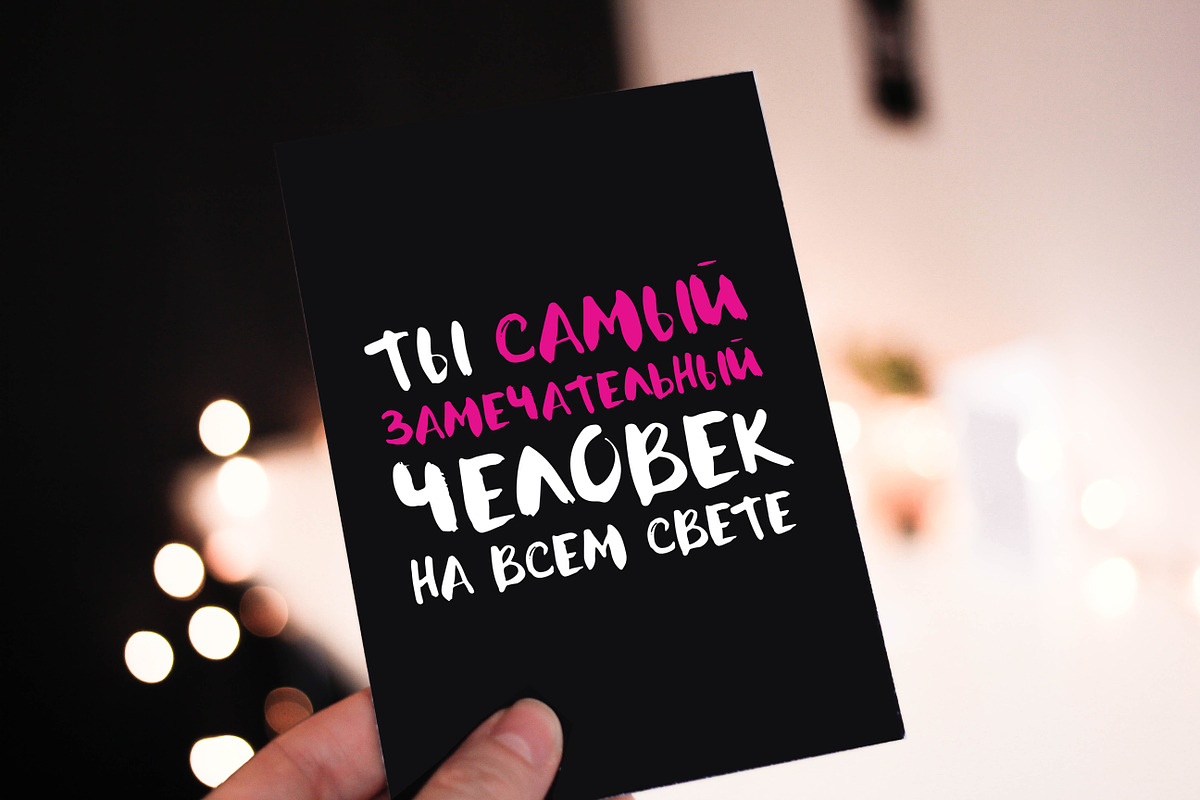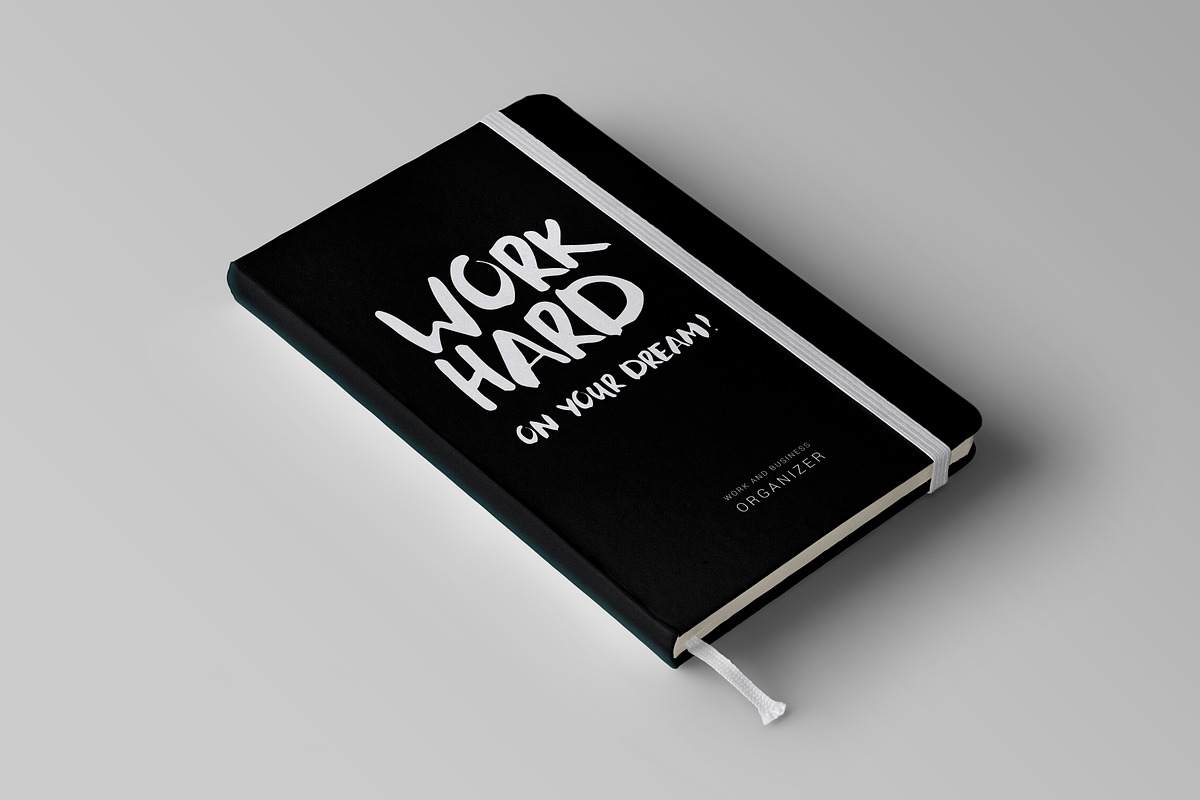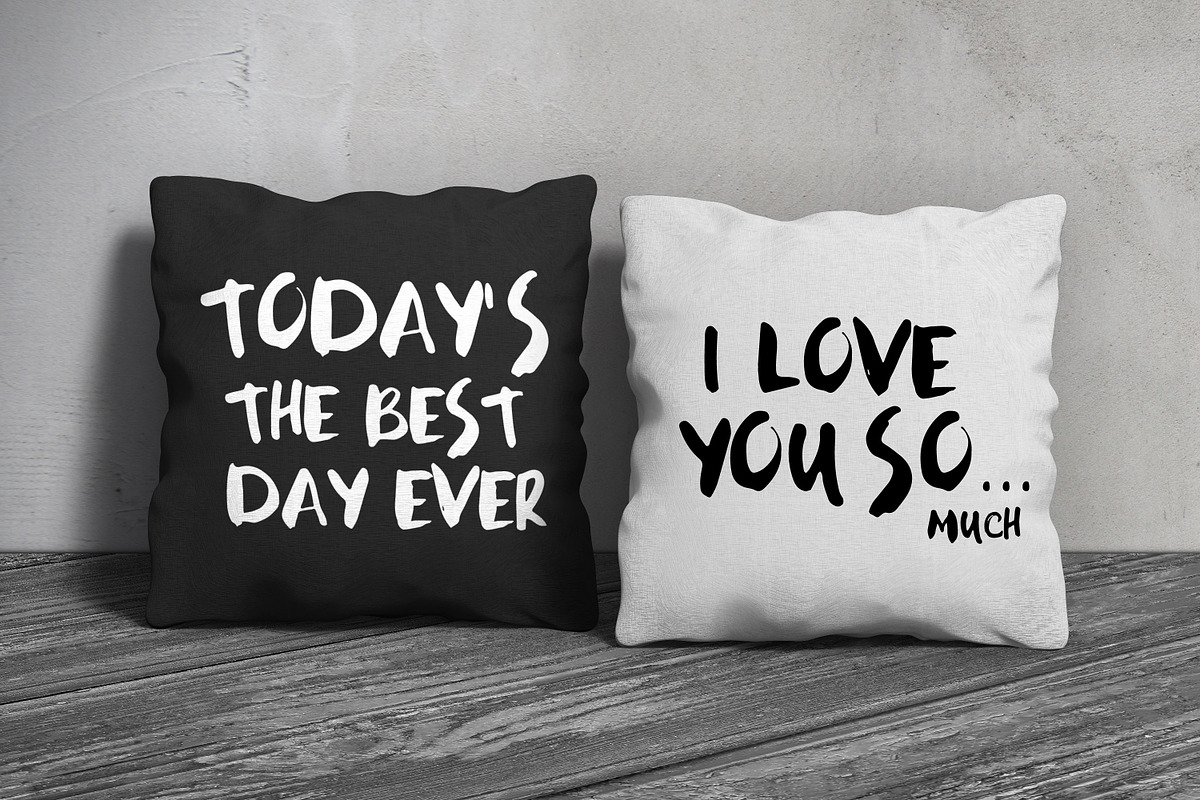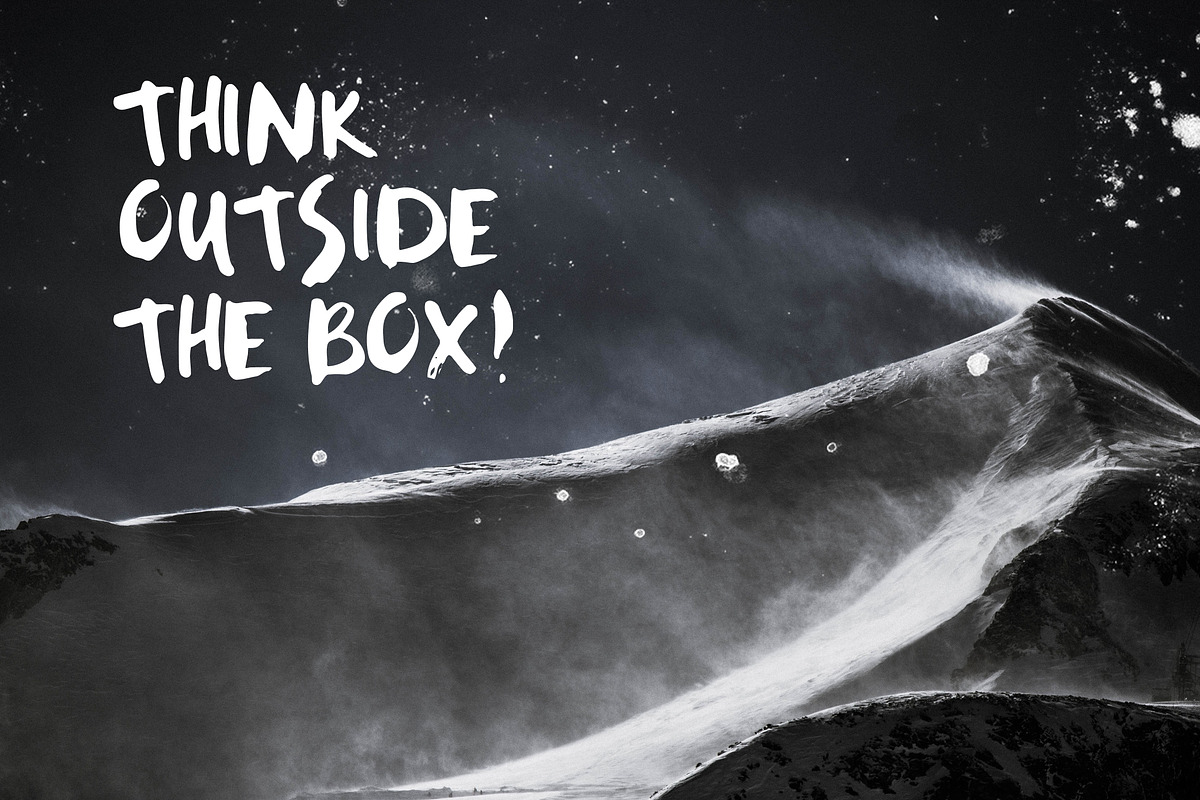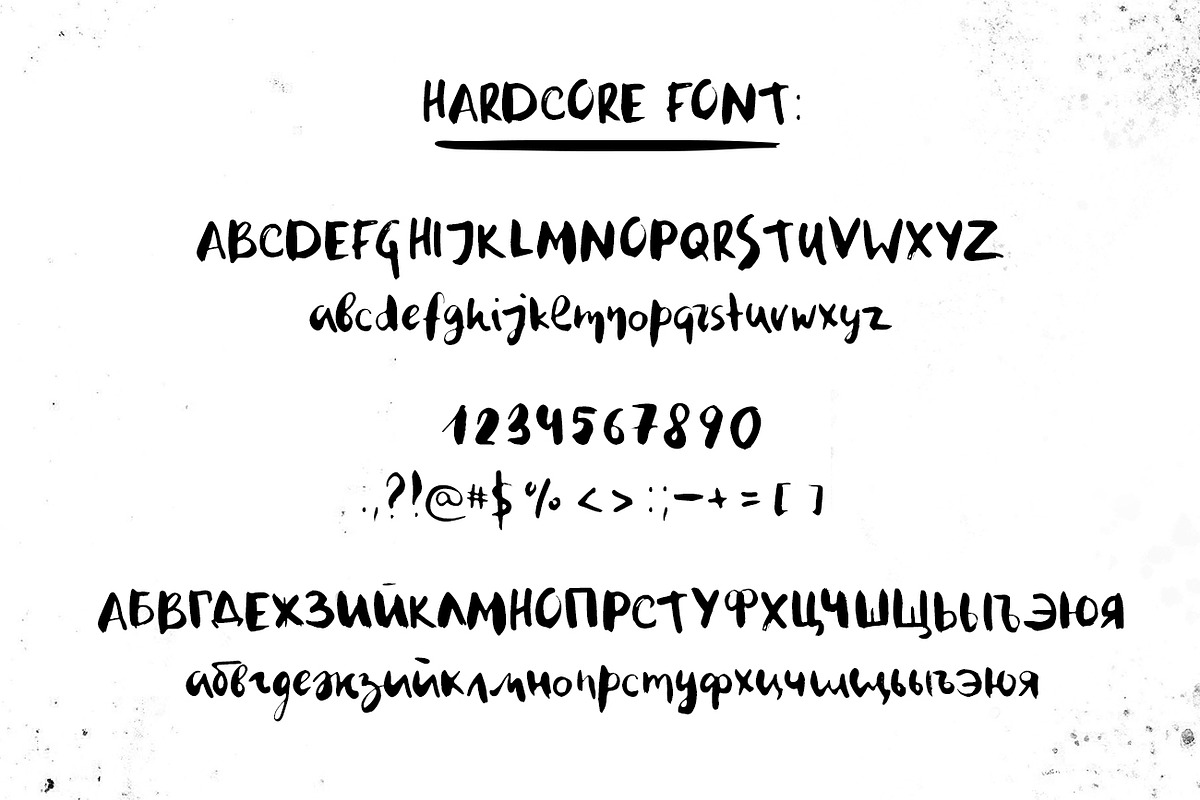
HARDCORE font (+cyrillic version)
HARDCORE font (+cyrillic version) by Marie Smth is a font selected for branding, posters, packaging, typography.
- HARDCORE - a casual, arty hand script consisting of upper and lowercase letters, punctuation and numerals.
- Hardcore Regular
HARDCORE font (+cyrillic version) by Marie Smth fits naturally into Branding, posters, packaging, typography.